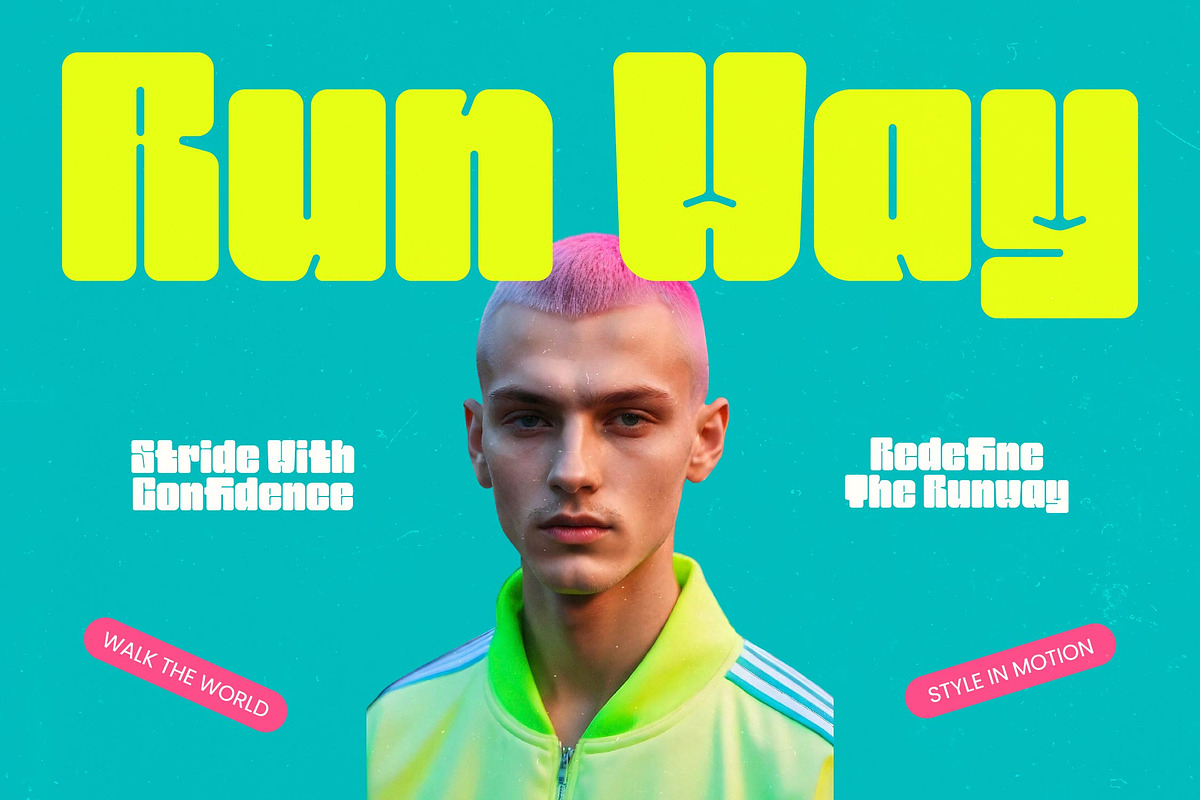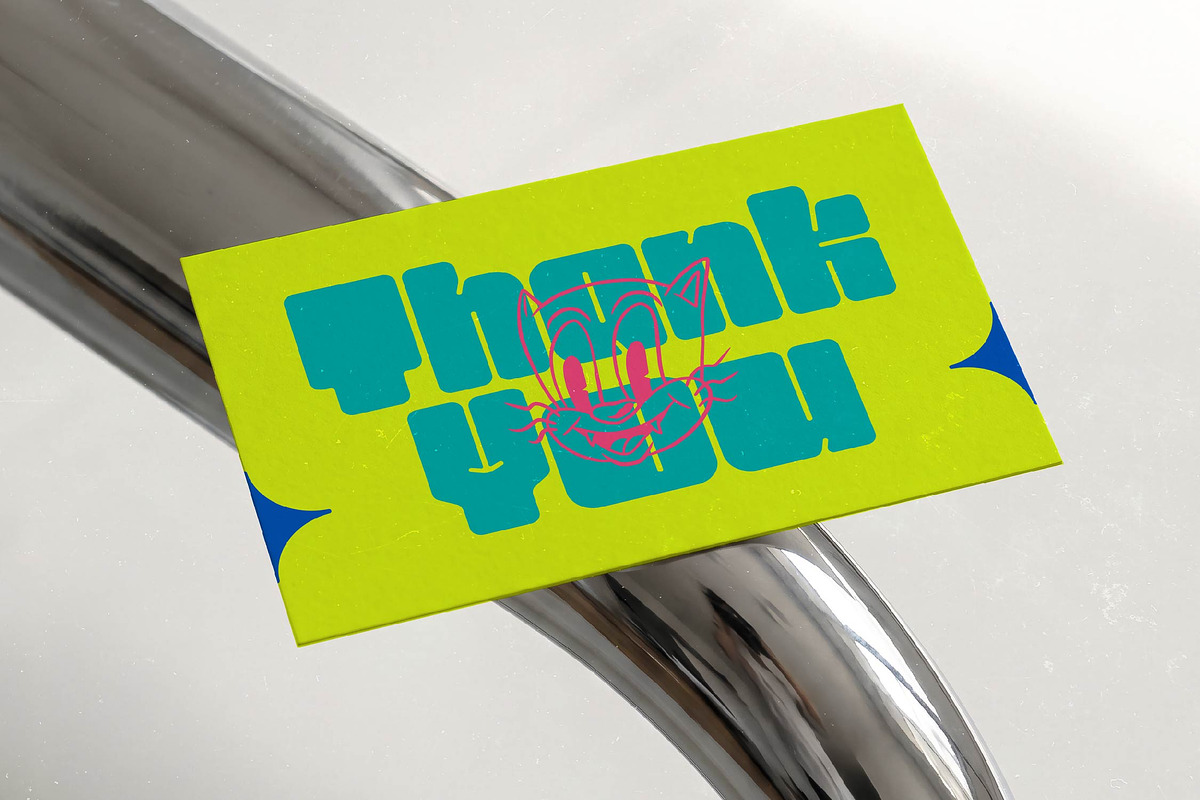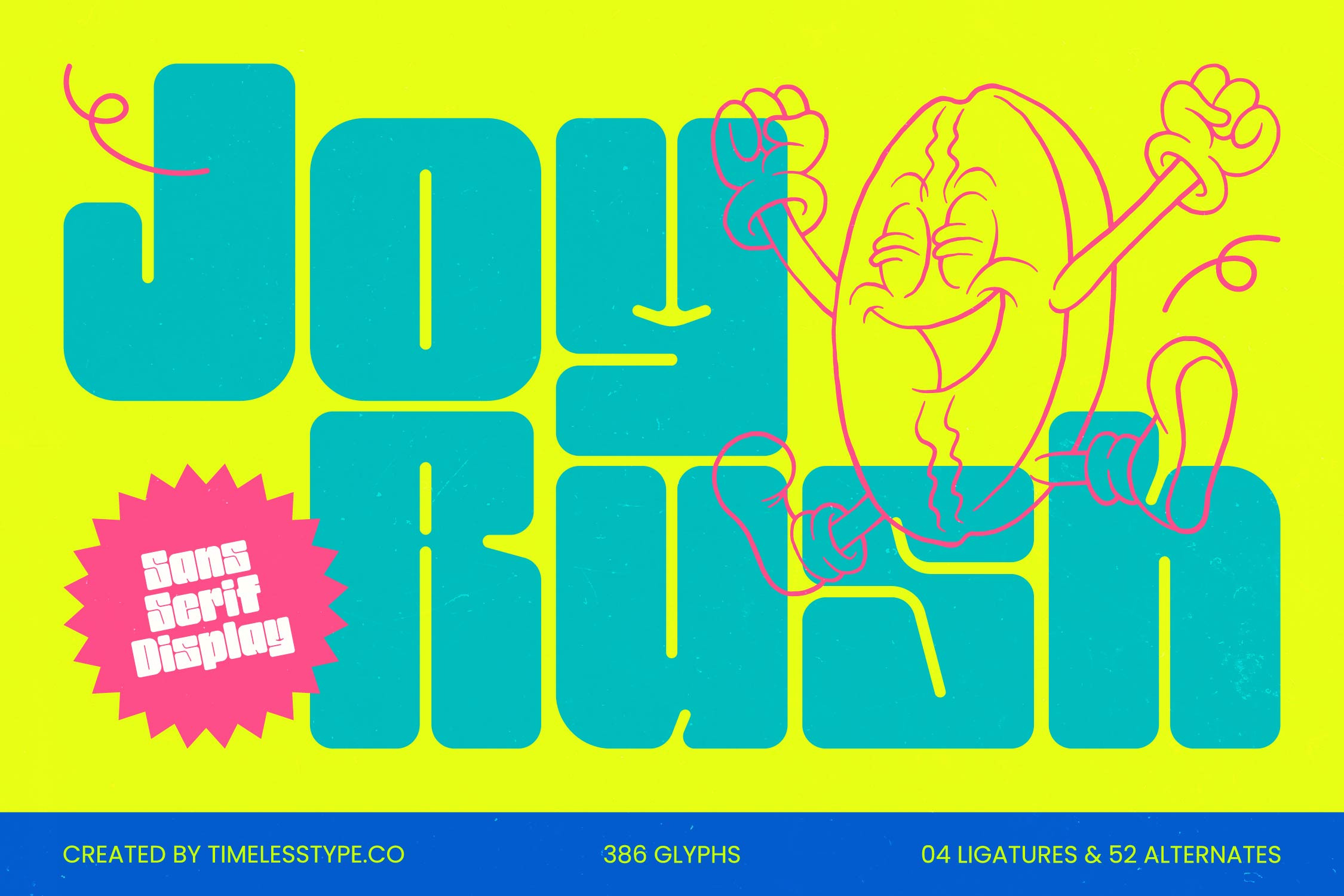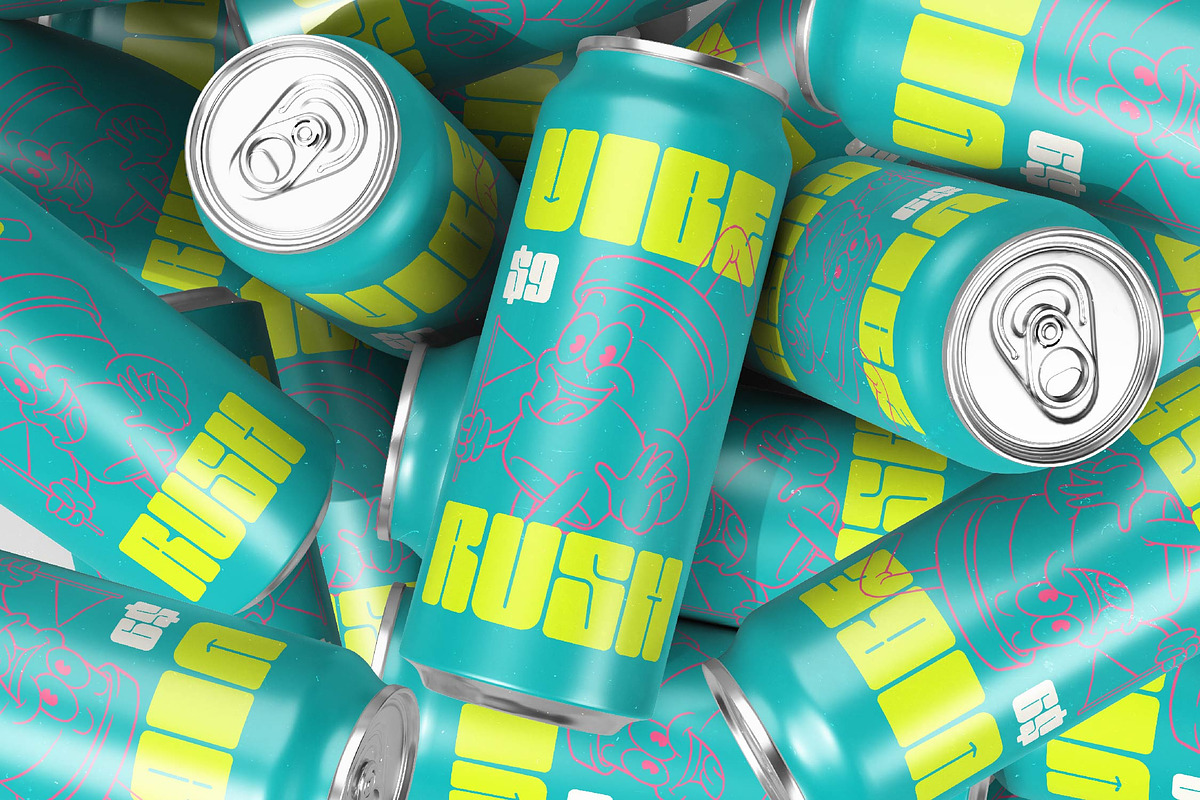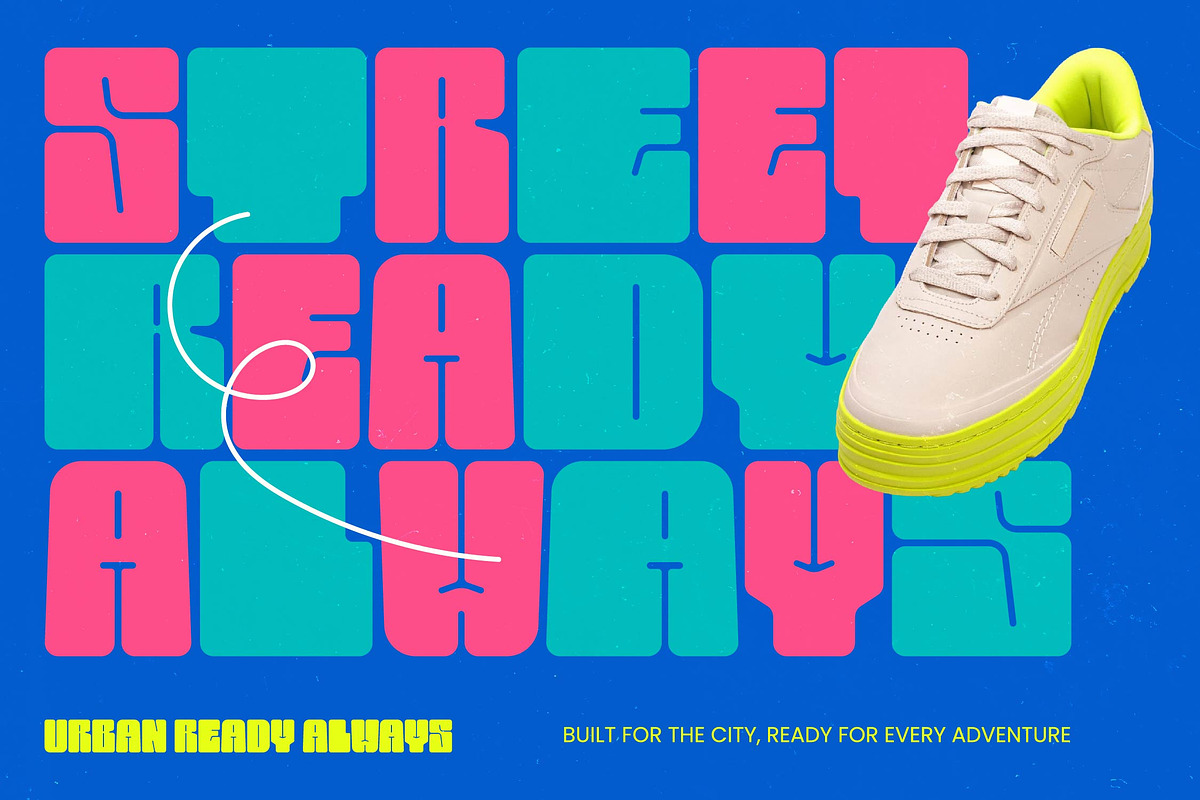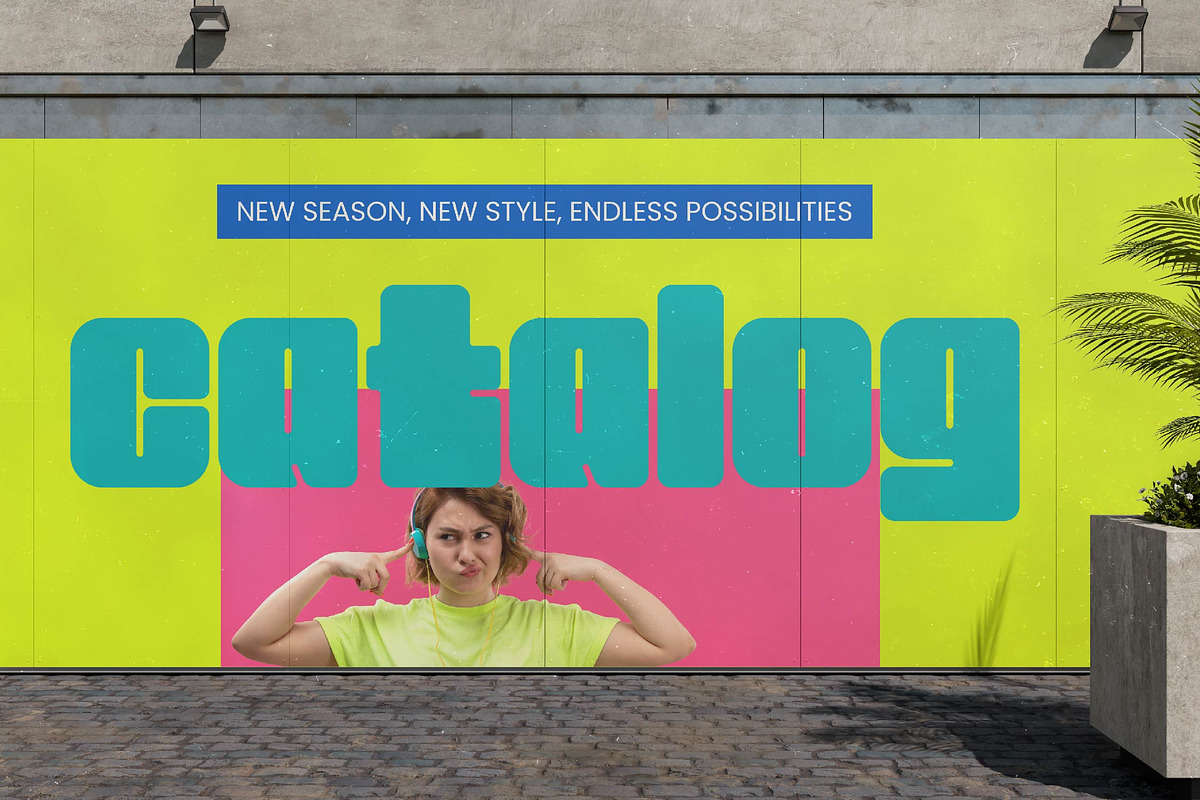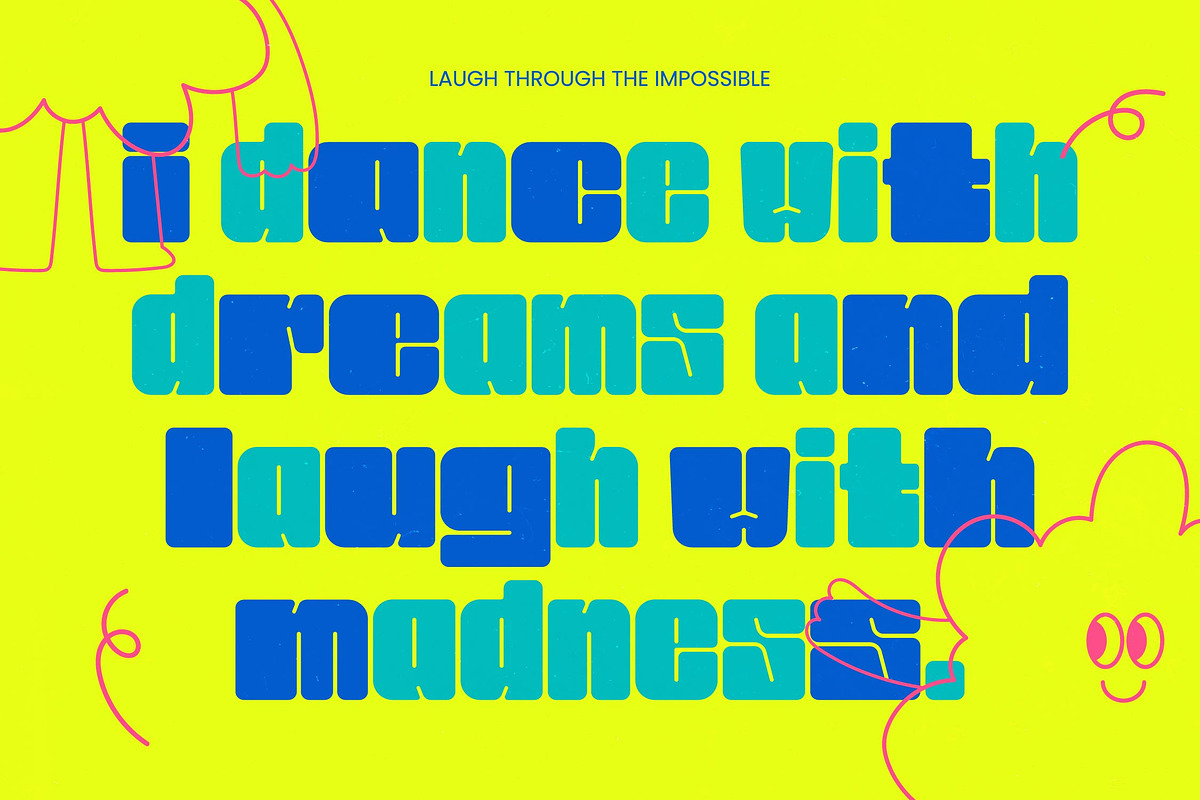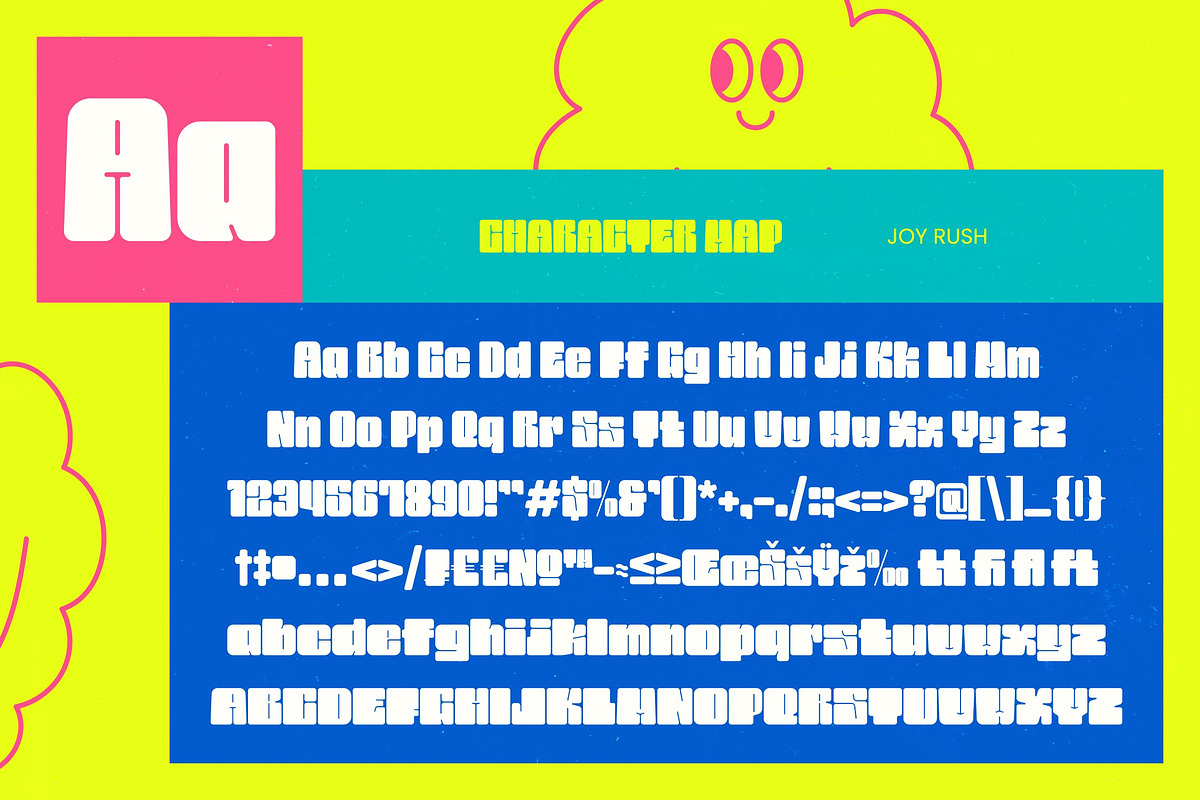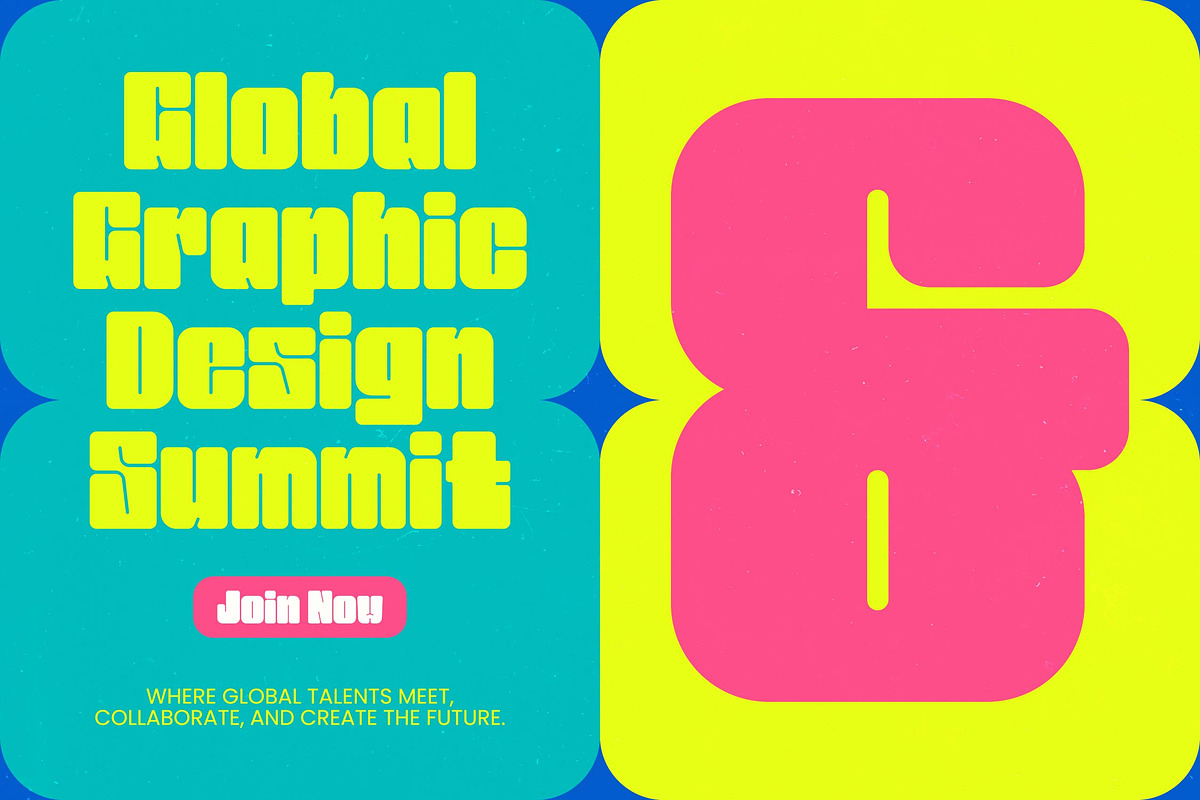
Joy Rush Sans Serif Display Font
Joy Rush - Sans Serif Display Font ,Unleash a wave of vibrant energy and expressive charm with Joy Rush, a typeface designed to make every message resonate with pure excitement. This font is more than just characters on a page; it is a visual celebration that turns static text into a rhythmic dance of style and personality.
Inspired by the whimsical world of vintage cartoon animation and the high-energy aesthetics of 1970s pop culture, this font captures a unique sense of nostalgia. It channels the spirit of rubber-hose characters and Saturday morning graphics into a contemporary toolkit for the modern creator.
Providing a massive branding impact, this typeface stands out as a bold alternative to standard modern serif display and luxury typography. It reimagines the concept of a high-contrast serif through its chunky, rounded forms, delivering the weight and presence of a premium editorial font while maintaining a friendly, accessible disposition.
As designers move toward more expressive, character-driven typography, this font perfectly aligns with the modern serif trend. It sets a new standard for editorial display fonts by offering a playful yet professional aesthetic that breaks through the noise of traditional minimalist design.
From high-impact logo design to cohesive visual branding systems, this typeface is engineered for versatility. Its bold presence is ideal for packaging that pops, cutting-edge fashion spreads, and even unconventional wedding stationery that seeks a touch of joy within an editorial layout.
This comprehensive set features a rich library of ligatures and alternates that allow for deep customization. With specialized swashes, full multilingual support, and a complete range of international characters, it ensures your creative vision translates perfectly across any border or language.